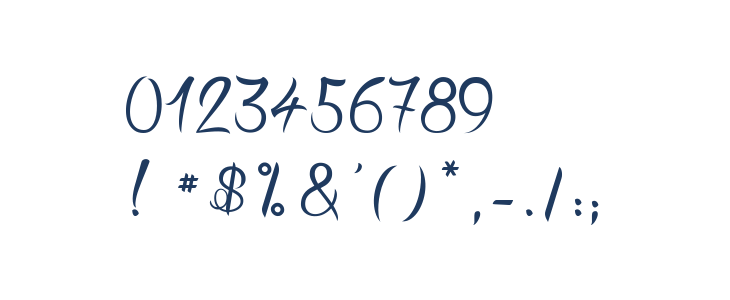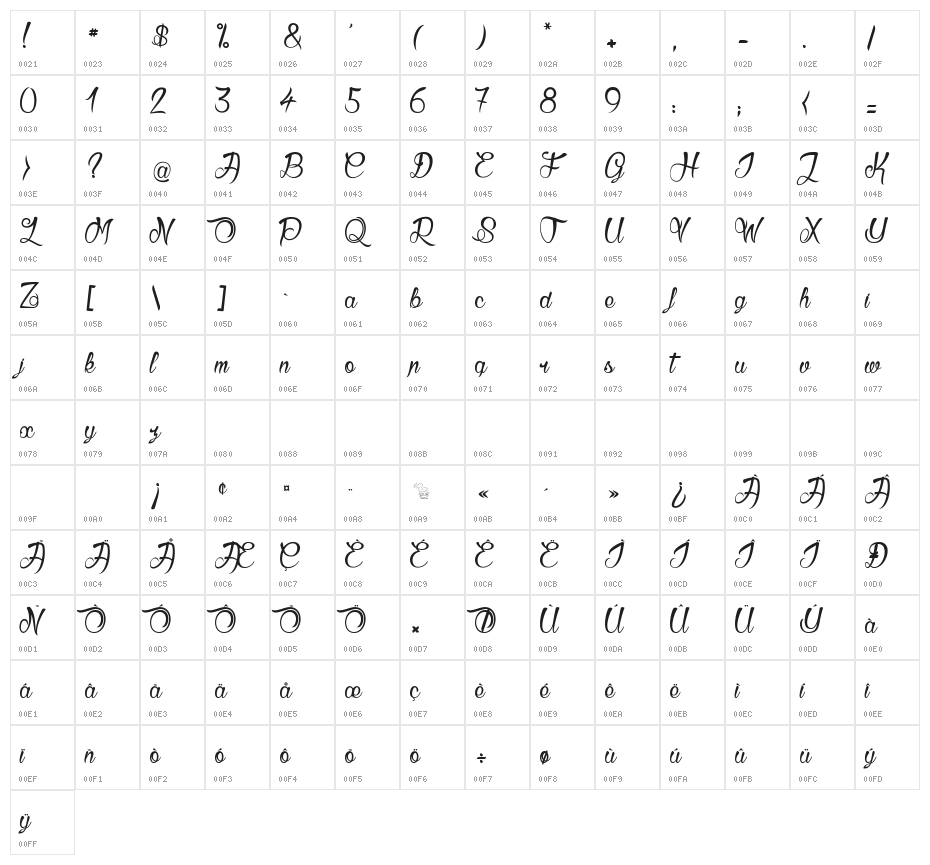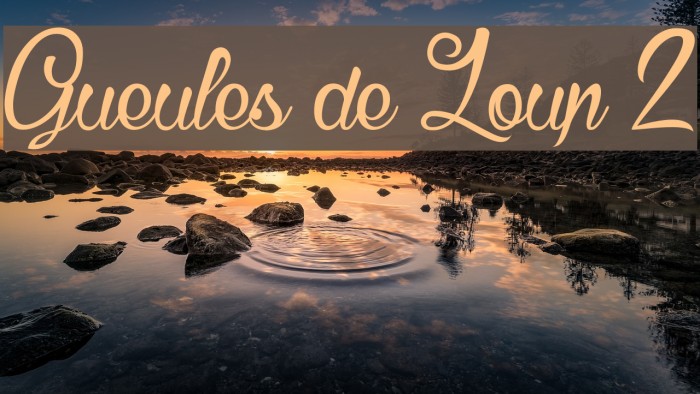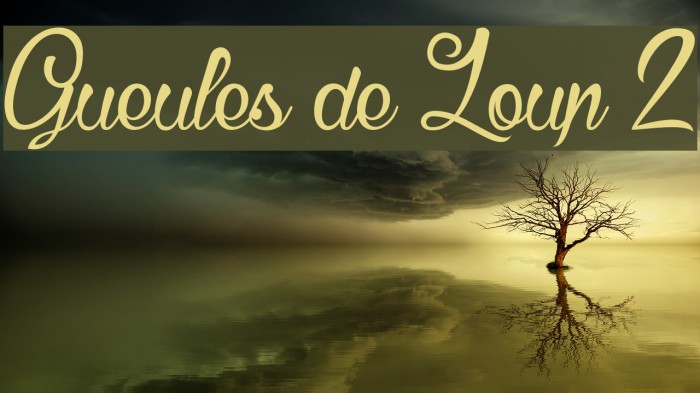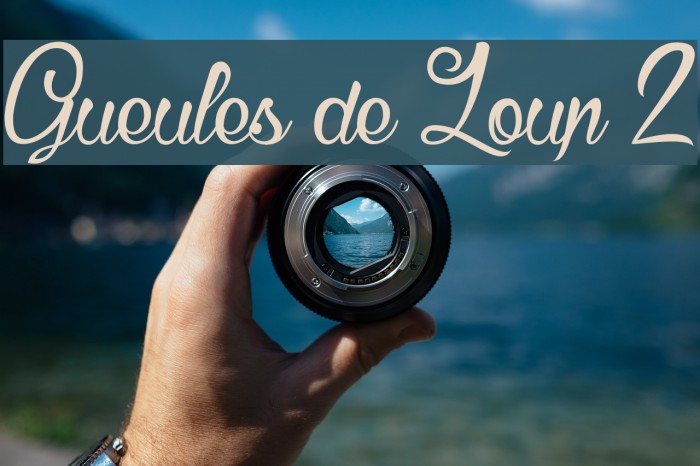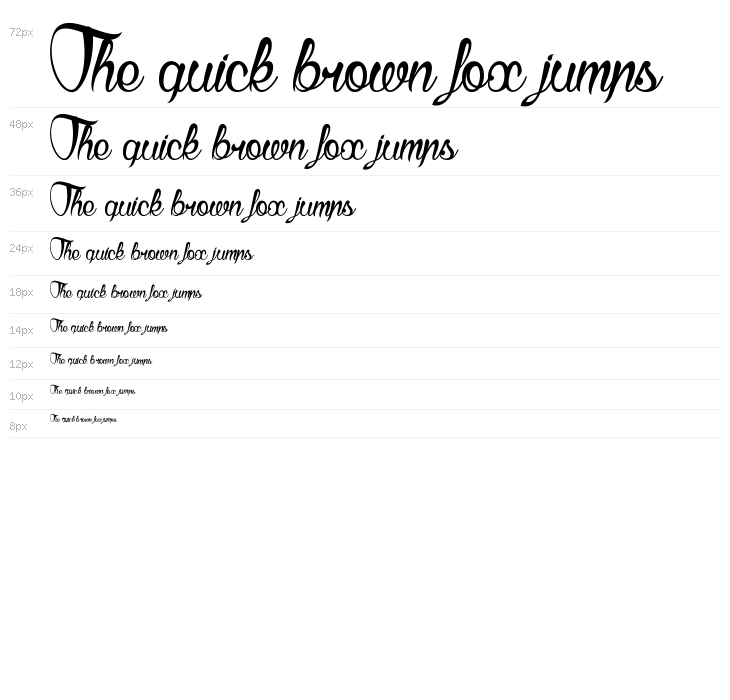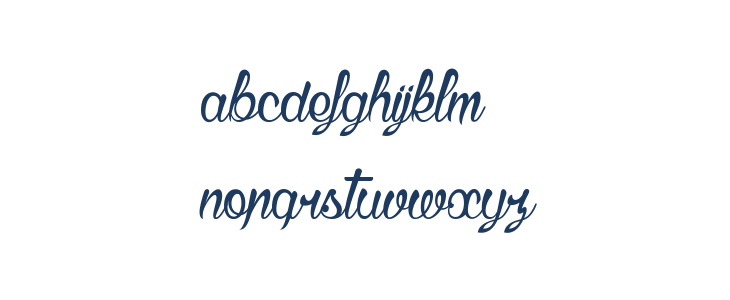
Gueules de Loup 2 Font
Gueules de Loup 2 Description
This font features an elegant and flowing script style, characterized by its intricate loops and swirls. The uppercase letters are particularly ornate, with exaggerated curves that give a sense of movement and sophistication. The lowercase letters maintain a consistent style, with smooth connections and a slightly slanted orientation, enhancing the cursive feel. The numerals are distinct yet harmonize with the overall aesthetic, featuring subtle curves and a balanced weight. Special characters are thoughtfully designed, matching the decorative nature of the font. This font exudes a sense of elegance and artistic flair, making it suitable for creative and formal applications.